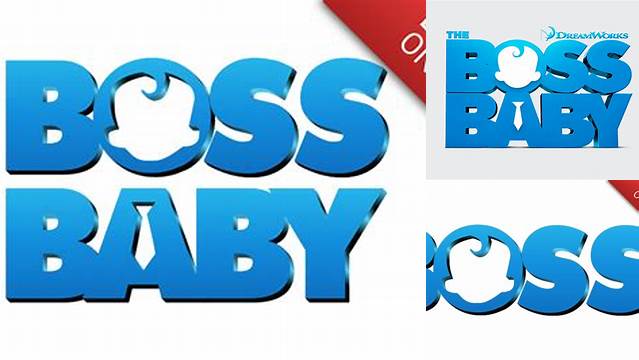
Hey everyone! Are you ready to inject some serious cuteness and fun into your designs? Well, you've come to the right place! Today, we're diving headfirst into the world of the Boss Baby font generator, and the best part? It's totally free! This tool is a lifesaver for anyone looking to create graphics that capture the playful spirit of the hit movie. Whether you're a seasoned designer or just starting out, this guide will walk you through everything you need to know to create awesome visuals. So, let's get started and see how we can bring that Boss Baby charm to your projects!
H2: What is a Boss Baby Font Generator?
Alright, first things first: what exactly is a Boss Baby font generator? Simply put, it's an online tool that allows you to create text in a style that mimics the iconic font used in the Boss Baby movie. This font is known for its bold, friendly, and slightly quirky appearance – perfect for capturing the attention of kids and adults alike. Think of it as a digital paintbrush that lets you write with the same style as the movie's logo and titles. The great thing about these generators is their simplicity. You don't need any fancy design software or experience to use them. Just type in your text, and the generator will transform it into the Boss Baby font style. It's a fantastic way to add a touch of fun and professionalism to your projects, especially if they're targeted at a younger audience or if you want to evoke a sense of playfulness. The beauty of a Boss Baby font generator is that it democratizes design. It empowers anyone, regardless of their skill level, to create visually appealing content that stands out. The generator is designed to be intuitive, allowing you to experiment with different text and see how it looks in the Boss Baby font style in real-time. Most generators offer basic customization options, such as adjusting the text size or color, giving you even more control over your final design. This means you can tailor your text to perfectly match your project's overall aesthetic.
H3: Understanding the Boss Baby Font Style
Let's dive deeper into what makes the Boss Baby font so appealing. The font is characterized by its rounded letterforms, which give it a soft, approachable look. The letters are often bold, ensuring they grab your attention immediately. It's designed to be friendly and inviting, making it ideal for various creative projects. When you see the font, you instantly associate it with the playful and energetic tone of the Boss Baby movie. The unique styling, with its slightly quirky and somewhat exaggerated features, adds a touch of personality and makes it stand out from more generic fonts. This font is carefully designed to be highly readable, even when used in large sizes. The key is to make sure the text is easy to read and engaging. The use of the font extends beyond just the title. This font's charm extends to any design you can imagine. Consider how it's used in posters, social media graphics, website headers, and even printed materials like invitations or flyers. Because it's a playful and recognizable font, it can instantly make your project more appealing. It's all about creating a visual experience that resonates with your audience. The Boss Baby font style works on a subconscious level, conveying a sense of fun and friendliness. This makes it perfect for brands targeting a youthful demographic or those wanting to communicate a lighthearted message. This font is more than just letters on a screen; it's a powerful tool for visual communication. You can see the font everywhere, from birthday party invitations to educational materials. The font's versatility makes it a favorite for designers and non-designers. The font's distinctive character makes it an excellent choice for various projects that are looking for a style that is both engaging and instantly recognizable.
H2: How to Use a Boss Baby Font Generator: Step-by-Step Guide
So, you've found a Boss Baby font generator. Now, what? Let's walk through a step-by-step guide on how to use it. First, go to your chosen font generator's website. Locate the text input box. Here, you will type in the text you want to convert into the Boss Baby font. You may have to select the Boss Baby font from a list of options. After typing your text, you will usually see a live preview of your text in the Boss Baby font style. Now, use any customization options provided by the generator. You can usually adjust the font size, color, and spacing. Experiment with these options to get the look you want. Once you're happy with the result, look for a download button. Click this button to download your customized text. The generator may offer multiple file format options. Choose the format that's best for your project (like PNG, JPG, or SVG). Save the file to your computer. Finally, import the downloaded file into your design project. Then you can use your Boss Baby font text in your designs! It's that simple! Remember to read the generator's instructions. These instructions may differ slightly depending on the specific tool you're using. Be sure to experiment with the generator. Try different text and customization options to get the most out of the tool. With a little practice, you'll be creating amazing visuals in no time! The best generators are easy to use and provide clear instructions. Always make sure the generator is compatible with your design software. Make sure to double-check your text before you download it.
H3: Troubleshooting Common Issues with Font Generators
Sometimes, you might run into a few snags when using a Boss Baby font generator. Let's look at some common issues and how to fix them. One issue could be with file compatibility. If your downloaded text won't open in your design software, check the file format. Make sure the format is compatible with your software. If your text doesn't appear as expected, double-check the font settings. Make sure the Boss Baby font is selected correctly. Also, be sure to check your text spacing and other customization settings. If the quality of your downloaded text isn't up to par, check the generator's settings. High-resolution files usually produce better results. If you have trouble downloading your text, make sure your internet connection is stable. Also, try clearing your browser's cache and cookies. Sometimes, the generator might have a bug. If this happens, try refreshing the page or using a different browser. Sometimes, you may encounter copyright issues. Be sure to check the generator's terms of use regarding commercial use. If you have problems with the generator's performance, contact the generator's support team. This will provide quick solutions. If you're facing any issues, take a look at the generator's FAQ section. This can provide answers to common problems. If the generator isn't working, try another font generator. If you're still having issues, consult online forums or communities. You may be able to find assistance there. Be sure to always update your software. This can resolve performance issues.
H3: Finding Similar Fonts to the Boss Baby Font
If you're looking for fonts similar to the Boss Baby font, you're in luck! There are many fonts out there that have a similar vibe. Try searching for